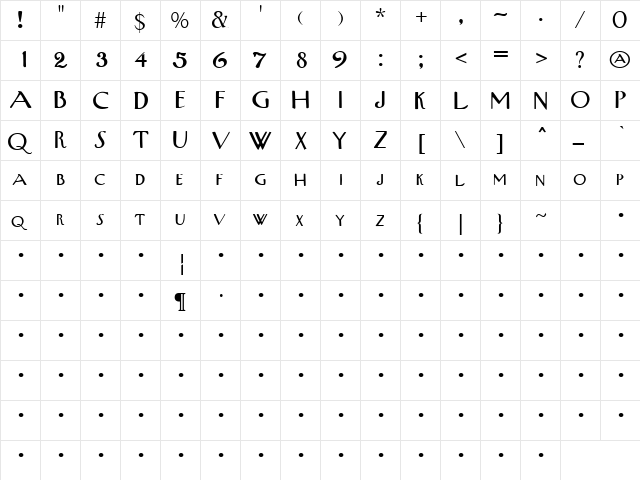
QTWestEnd Regular
Design Context for QTWestEnd Typeface
QTWestEnd takes a measured approach to typography — its balanced proportions and neutral character make it a reliable workhorse for both digital and print work.